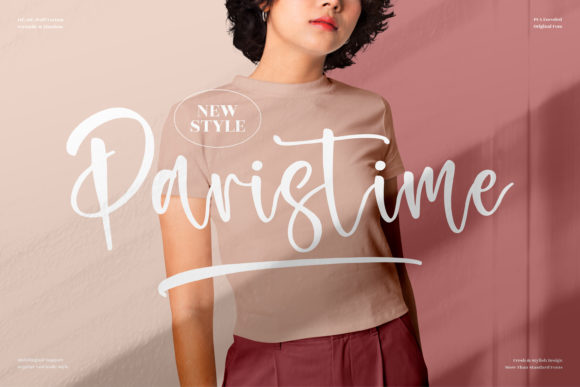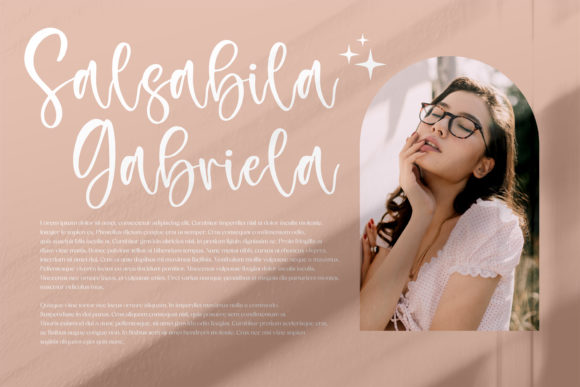
About Paristime Font
Paristime is a lovely and timeless handwritten font. It is the best choice for creating eye catching logos, branding and quotes. Every letter has a unique and beautiful touch, which will make your design come alive!